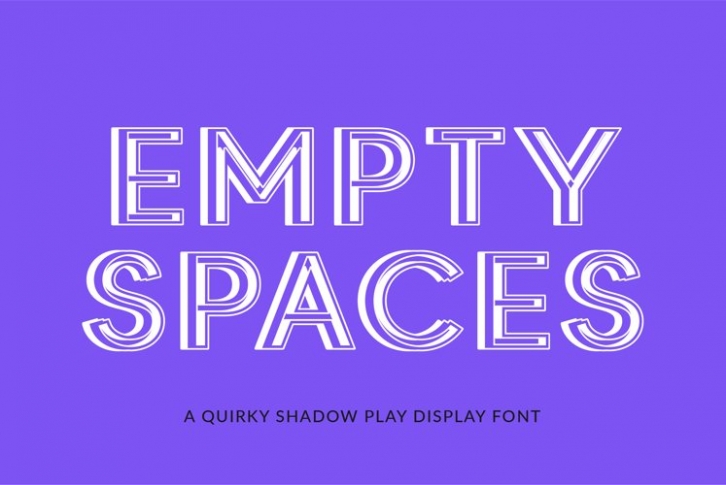
Empty Spaces is a beautiful font that was designed by plusstore. It's a great choice for designers and creatives who need such a font. It was released on September 8, 2021 and the file size is 8.28 MB. Empty Spaces may give a more youthful, expressive and casual look to your project. It is a very beautiful, refined, elegant, and high-quality font.